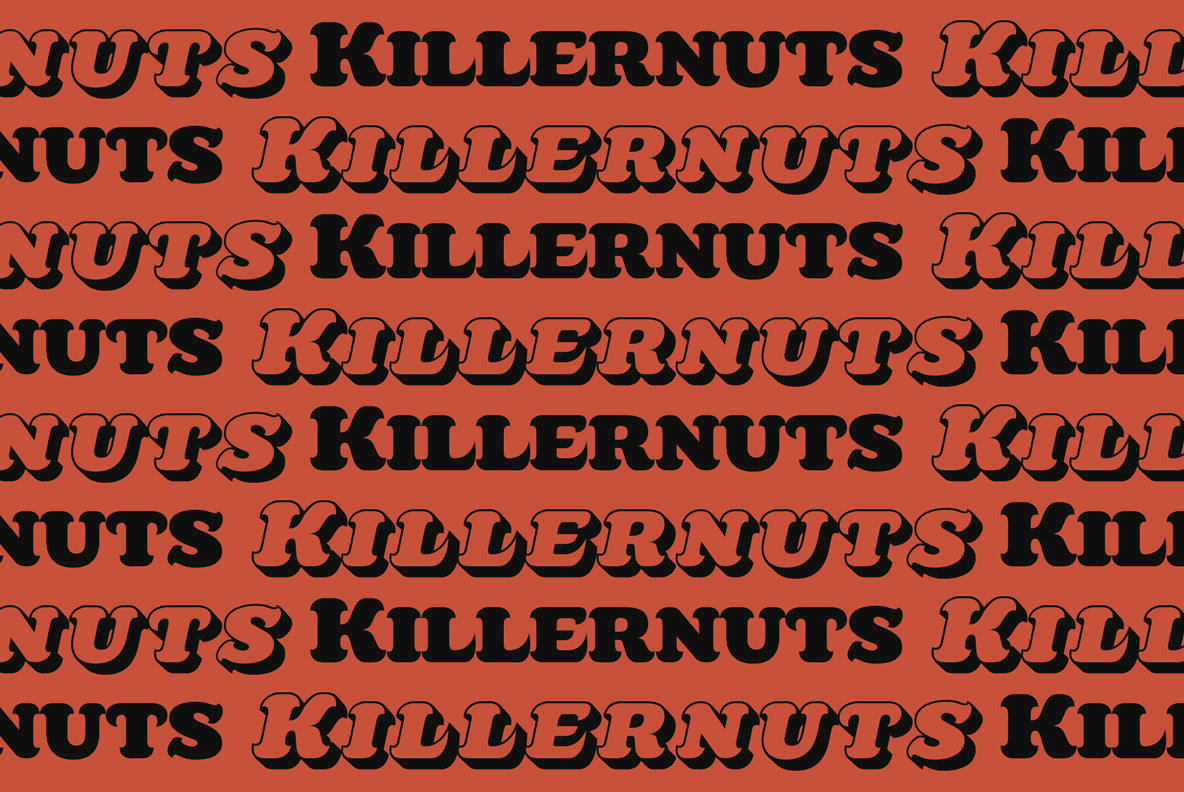
Killernuts Font
Killernuts Font is perfect for extreme snack branding, aggressive food marketing, bold gaming interfaces, rebellious restaurant signage, intense energy drink campaigns, wild party promotions, crazy advertising projects, and high-energy entertainment graphics. This wild typeface works exceptionally well in both digital applications and print media where insane energy and outrageous personality are essential design elements.
What makes Killernuts Font so exciting is its completely unhinged interpretation of extreme flavor and wild energy through chaotic letterforms that seem to explode with the same insane intensity and addictive appeal that defines the most extreme snack experiences and wild food adventures. The font features crazy characters with nuts-level proportions, wild curves, and insane details that communicate explosive flavor, addictive excitement, and the completely unrestrained energy of those who crave the most extreme taste sensations. Its wild personality and extreme heritage make it ideal for brands seeking to establish crazy credibility in extreme food markets while appealing to audiences who live for intense flavors, wild experiences, and the addictive thrill of extreme snacking.
The Killernuts Font family includes multiple weight variations with different crazy intensities, along with wild alternates and extreme ornamental elements. Each style maintains the typeface's insane character while offering comprehensive character sets including wild numerals, crazy punctuation marks, and special symbols designed to enhance extreme communications and wild branding efforts across various nuts contexts.
This extraordinary typeface represents the perfect fusion of extreme snacking culture and contemporary typography for food and entertainment industries targeting wild audiences. Whether you're developing extreme snack brand identities, creating wild food marketing materials, or designing crazy party promotions, Killernuts Font Free Download delivers the insane energy and versatility needed to drive the wildest audiences completely nuts. The font's extreme appeal makes it particularly effective for snack companies, energy drink brands, extreme entertainment venues, and businesses celebrating the wild side of flavor and the addictive thrill of going completely nuts.
The meticulously crafted wild construction and optimized extreme performance in Killernuts Font ensure maximum crazy impact while maintaining clear communication across all wild applications. Its insane presence makes it ideal for extreme branding, wild marketing campaigns, and nuts communications where its full killer character can create unforgettable impressions and establish immediate association with wild energy, extreme flavor, and the completely addictive experience of going absolutely nuts.